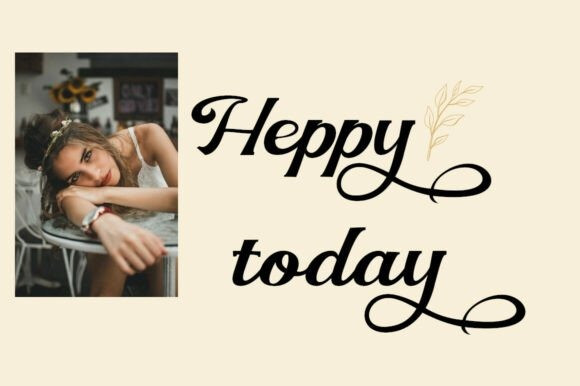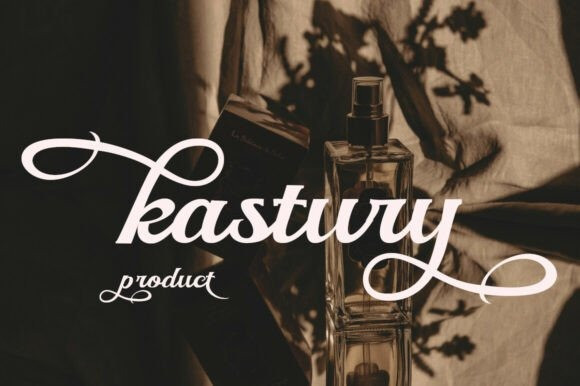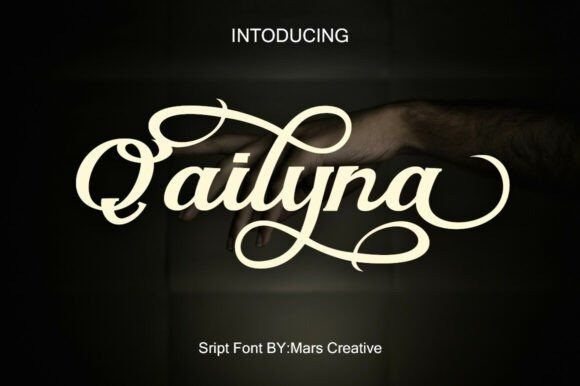
Qailyna Font
Qailyna Font is a font that exudes softness and elegance. With graceful strokes and a feminine touch, this font will elevate any design project to the highest level, be it branding, titles, wedding designs, invitations, signs, logos, labels, and more